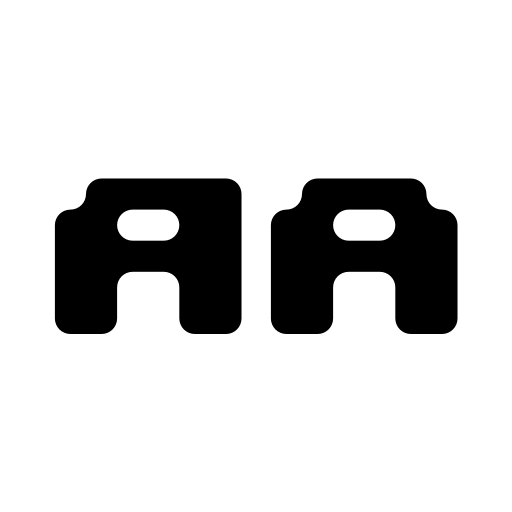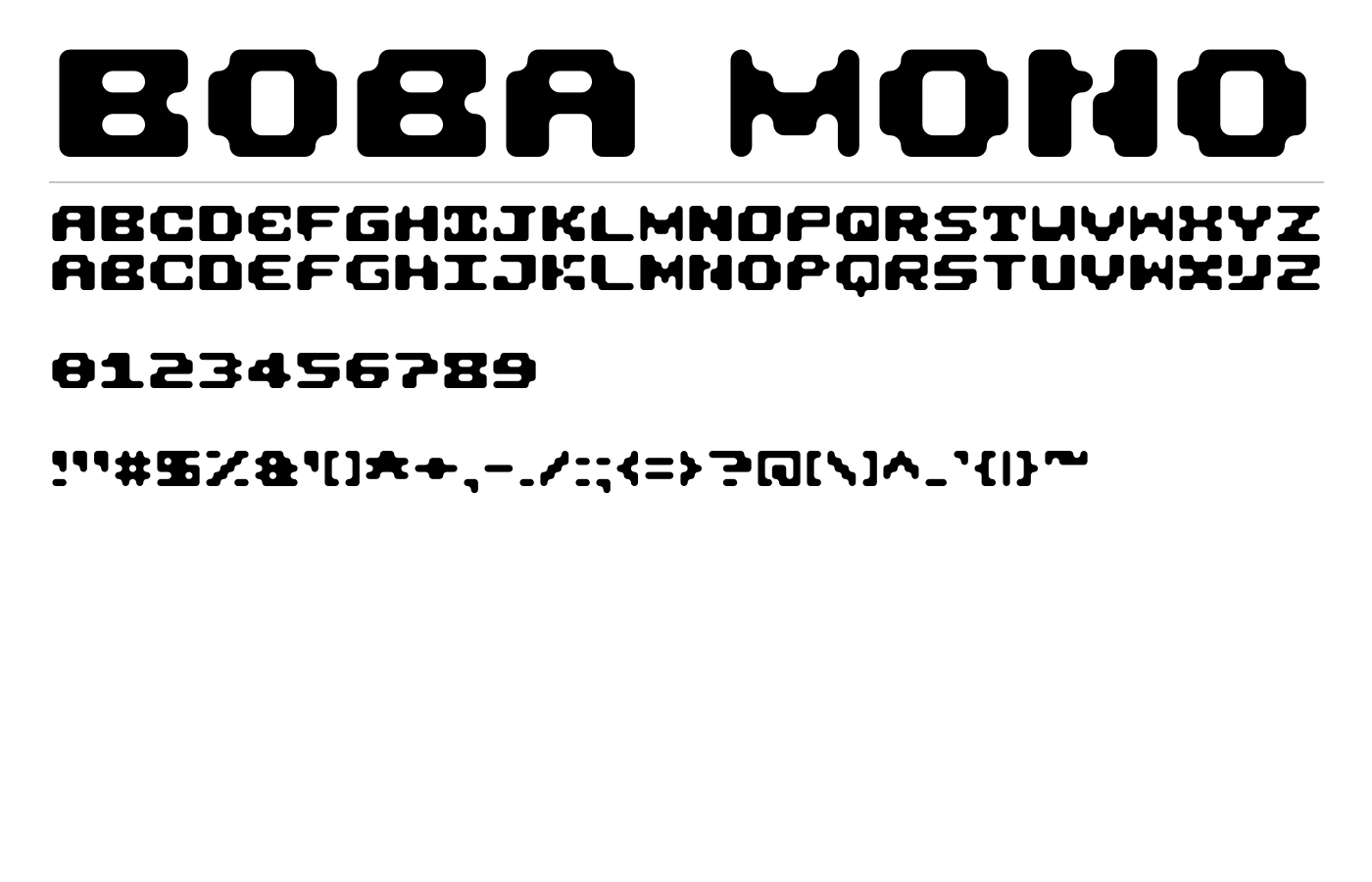
Boba Mono is a bold, geometric monospace font featuring blocky, rounded letterforms with consistent stroke weight and playful notched details, giving it a futuristic yet approachable feel. Its strong, uniform structure makes it ideal for tech-inspired designs, coding environments, or eye-catching headlines where a modern, digital vibe is desired. This font stands out in projects needing a quirky, standout character while maintaining clarity and readability.
Boba Mono Font
About Boba Mono Font